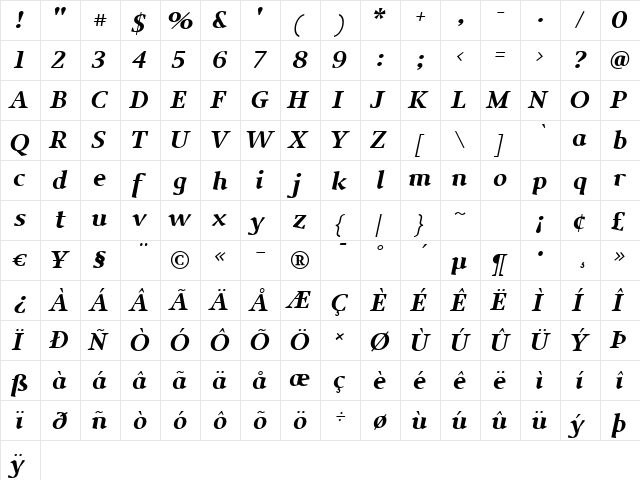
JudeBlackLiningNumbersItalic Regular
Design Context for JudeBlackLiningNumbersItalic Typeface
JudeBlackLiningNumbersItalic offers clean, dependable letterforms without strong stylistic allegiance, making it a practical choice for designers who need flexibility. The slanted form adds forward momentum and visual energy.
Pro Tip: Try JudeBlackLiningNumbersItalic for annotation and caption copy alongside an upright companion — the contrast in angle creates a dynamic but ordered typographic system.